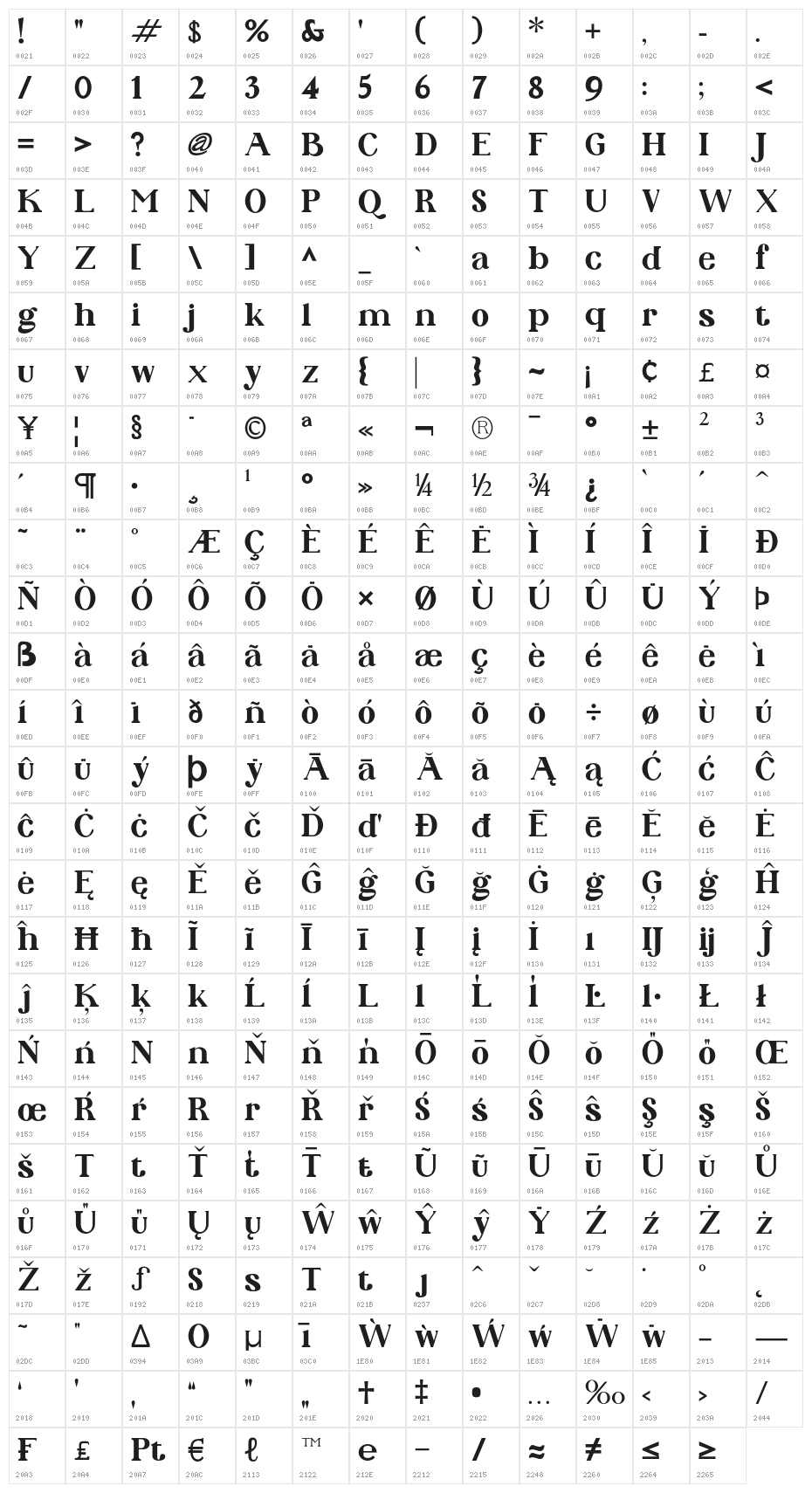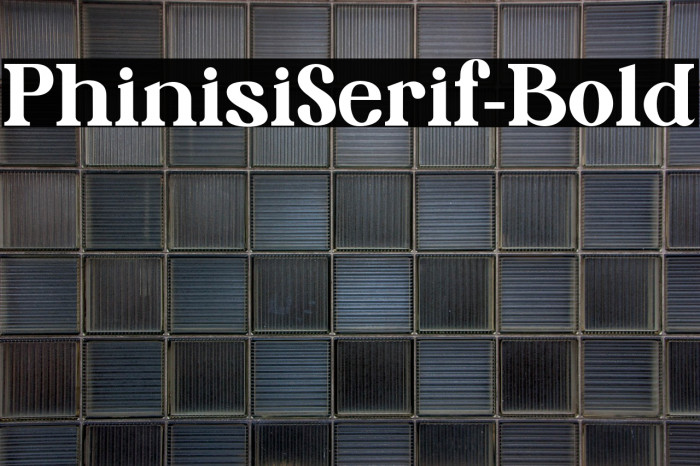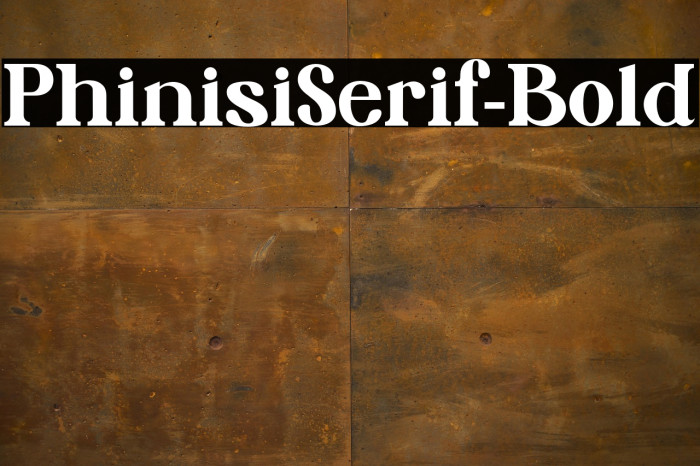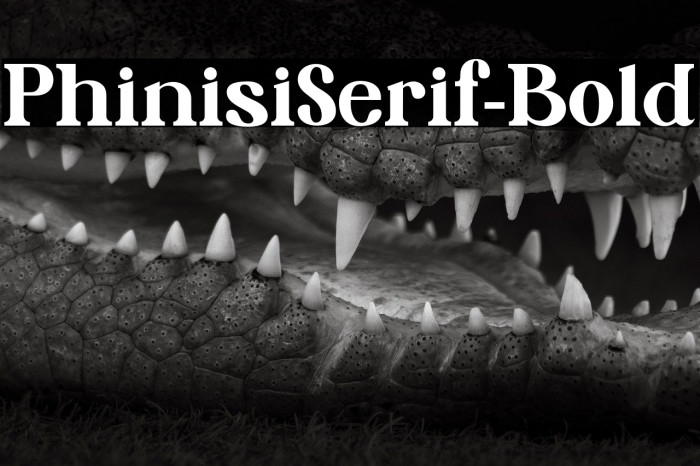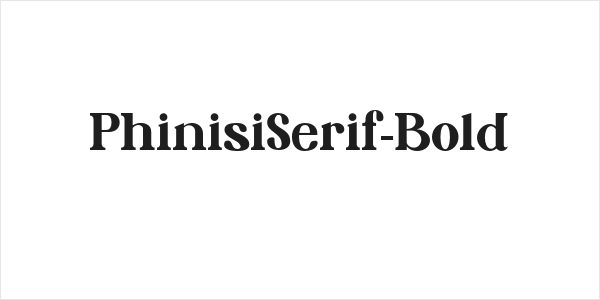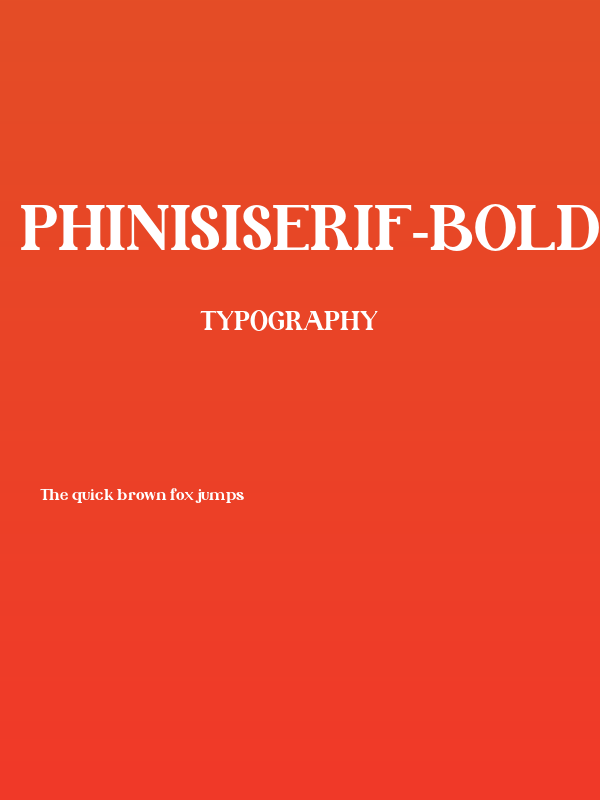
PhinisiSerif-Bold Font
PhinisiSerif-Bold Description
This serif font exudes a bold and authoritative presence, characterized by its strong, thick strokes and elegant serifs. The uppercase letters are robust and commanding, while the lowercase letters maintain a harmonious balance with slightly rounded edges that soften the overall appearance. The numerals are clear and distinct, ensuring readability. Special characters are crafted with precision, adding to the font's versatility. The design is both classic and modern, making it suitable for a variety of applications where a strong visual impact is desired.